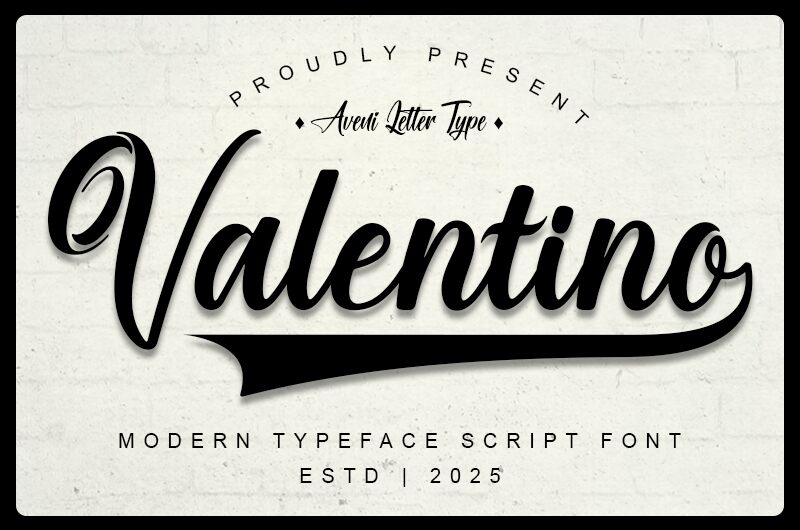
The Valentino
The Valentino font is designed by Aveni Letter Type, featuring gentle curves and flowing lines that create an elegant and sophisticated appearance. This free calligraphy font captures a graceful retro charm in its romantic script style, reminiscent of Scandinavian design.
Use The Valentino with branding and packaging, promotional materials, social media banners, invitations, greeting cards, beauty product lettering, clothing labels, brochure covers, event programs or menus.